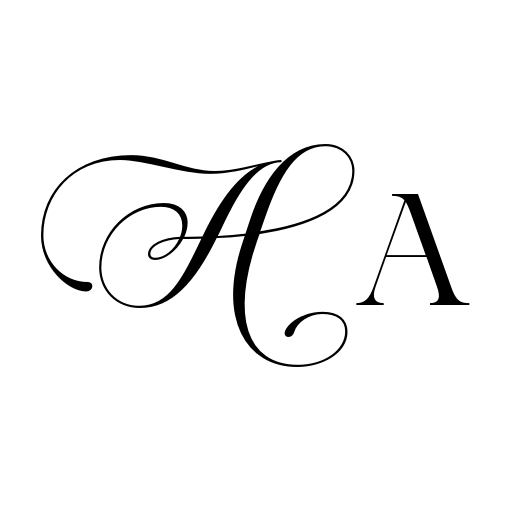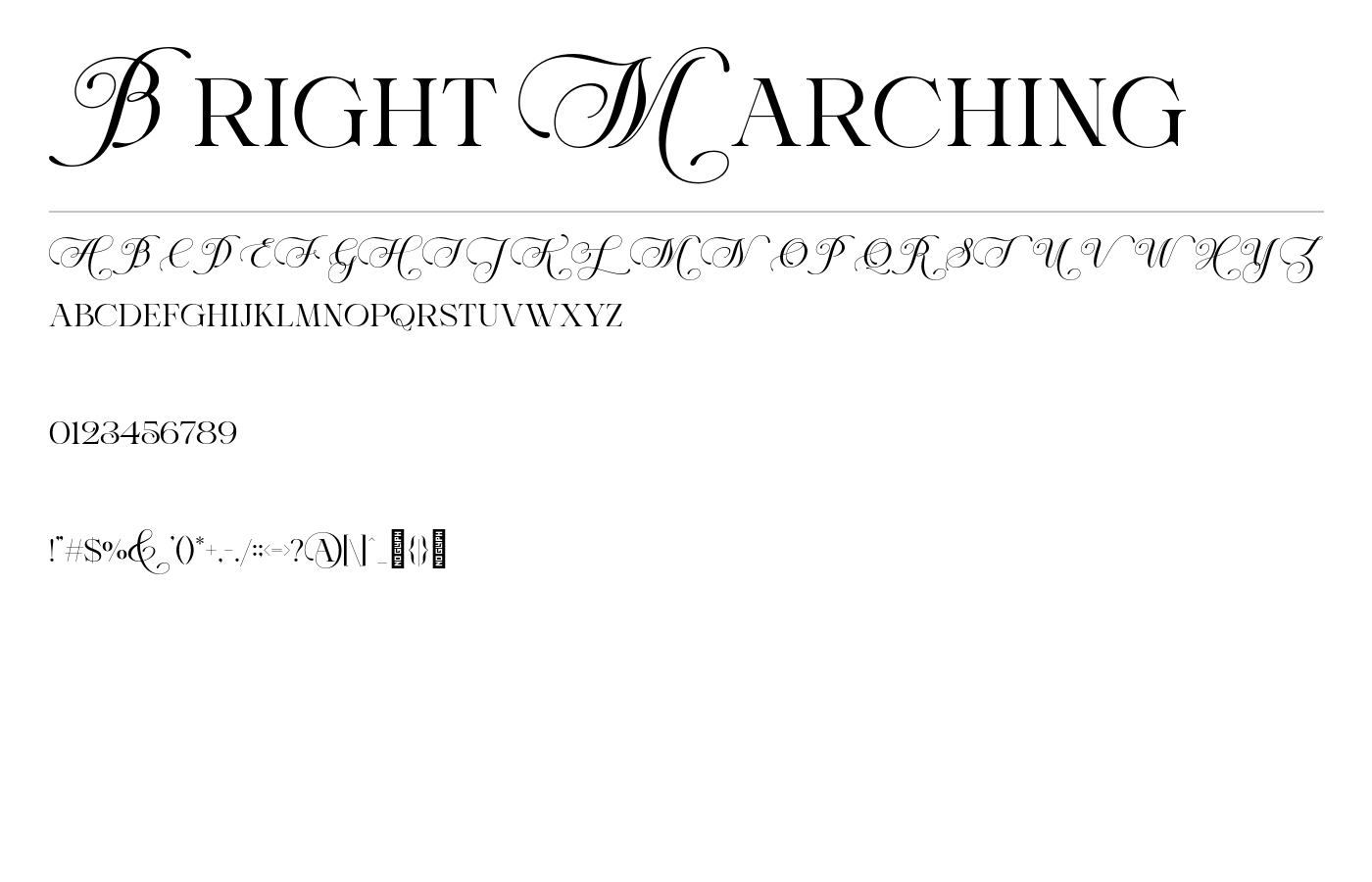
Bright Marching is an elegant serif font with a refined contrast between thick and thin strokes, featuring both classic uppercase letters and ornate, swirled alternate capitals perfect for decorative use. Its high contrast and slender, graceful forms lend a luxurious and sophisticated feel, making it ideal for upscale branding, invitations, and editorial headlines where a touch of vintage charm and refinement is desired.
Bright Marching Font
About Bright Marching Font
| Font family | Bright Marching Font |
| Designer | Brandsemut |